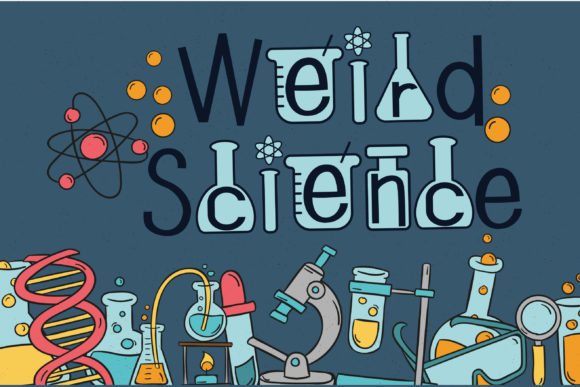
Weird Science Font: Unleashing Creativity with a Playful Sans Serif Font
The world of typography is vast and diverse, offering a multitude of font styles to suit various design needs. Among these, the Weird Science Font stands out for its unique blend of playful letters and science elements, making it a fascinating choice for designers looking to infuse their projects with a touch of whimsy and curiosity. In this article, we’ll explore the Weird Science Font in depth, understanding its characteristics, uses, and how it can elevate your design work.
What is Weird Science Font?
Weird Science is a hand-crafted sans serif font that combines the simplicity of sans serif fonts with the charm of hand-drawn typography. It’s specifically designed to incorporate playful letters and science elements throughout, making it a one-of-a-kind font for any project. Whether you’re working on a children’s book, an educational website, a science-themed presentation, or simply looking for a font that sparks imagination, Weird Science Font is an excellent choice.
Key Features of Weird Science Font
- Hand-crafted sans serif: Each letter is carefully designed to give the font a personal and unique feel.
- Playful letters: The font includes playful and possibly quirky letter designs that can add a fun element to your text.
- Science elements: Integrated science elements within the letters or as part of the font’s design make it perfect for science-related projects.
- Ease of readability: Despite its playful nature, the font maintains a level of professionalism and readability, suitable for a wide range of applications.
Uses of Weird Science Font
The versatility of the Weird Science Font makes it suitable for various projects. Here are some of the best uses for this unique font:
Educational Materials
For textbooks, workbooks, or educational websites aimed at children, the Weird Science Font can make learning more engaging. Its playful and science-themed elements can attract young learners’ attention and make the educational content more appealing.
Presentations and Slideshows
For presentations, especially those related to science, technology, engineering, and mathematics (STEM), this font can add a creative touch. It’s perfect for titles, headings, or even the entire text if you’re looking to create a fun and informal atmosphere.
Marketing and Branding
Businesses in the science, technology, or educational sectors can use the Weird Science Font in their branding to stand out. It’s particularly effective for logos, packaging, or promotional materials where you want to convey innovation and creativity.
Digital Content
Bloggers, YouTubers, or content creators focusing on science, technology, or educational topics can use this font to give their content a distinctive look. It’s especially useful for headings, titles, or even pull quotes to highlight important information.
Tips for Using Weird Science Font Effectively
To maximize the impact of the Weird Science Font, consider the following tips:
Mix and Match
Combine the Weird Science Font with other, more traditional fonts for body text to create contrast and visual interest. This can help maintain readability while still showcasing the unique aspects of the font.
Consider Size and Color
Use the Weird Science Font in larger sizes for headings or titles to make a bold statement. Experiment with colors that complement your overall design theme, keeping in mind that the font’s playful nature can be accentuated with vibrant colors.
Maintain Readability
While the font is designed to be playful, ensure that it remains readable, especially for longer texts. Adjust the font size or style as needed to improve legibility.
The Weird Science Font is a unique and versatile typeface that can add a playful and creative touch to various design projects. Its combination of hand-crafted sans serif characters and integrated science elements makes it particularly suitable for educational, scientific, and tech-related content. By incorporating this font into your designs and following best practices for typography, you can create visually appealing and engaging content that stands out from the crowd.
The Weird Science Font is more than just a typeface; it’s a statement of creativity and a tool to convey your message in a fun and engaging way. Whether you’re a designer, educator, or content creator, this font offers endless possibilities to enhance your work and make it more memorable.